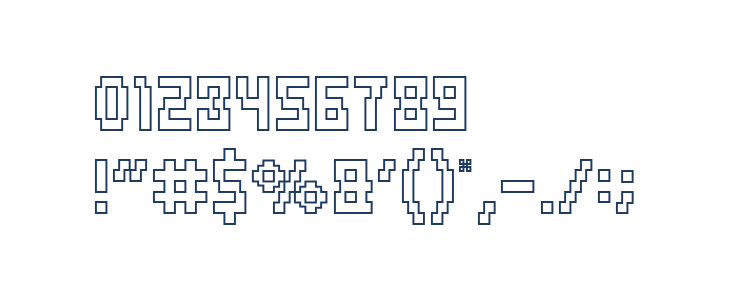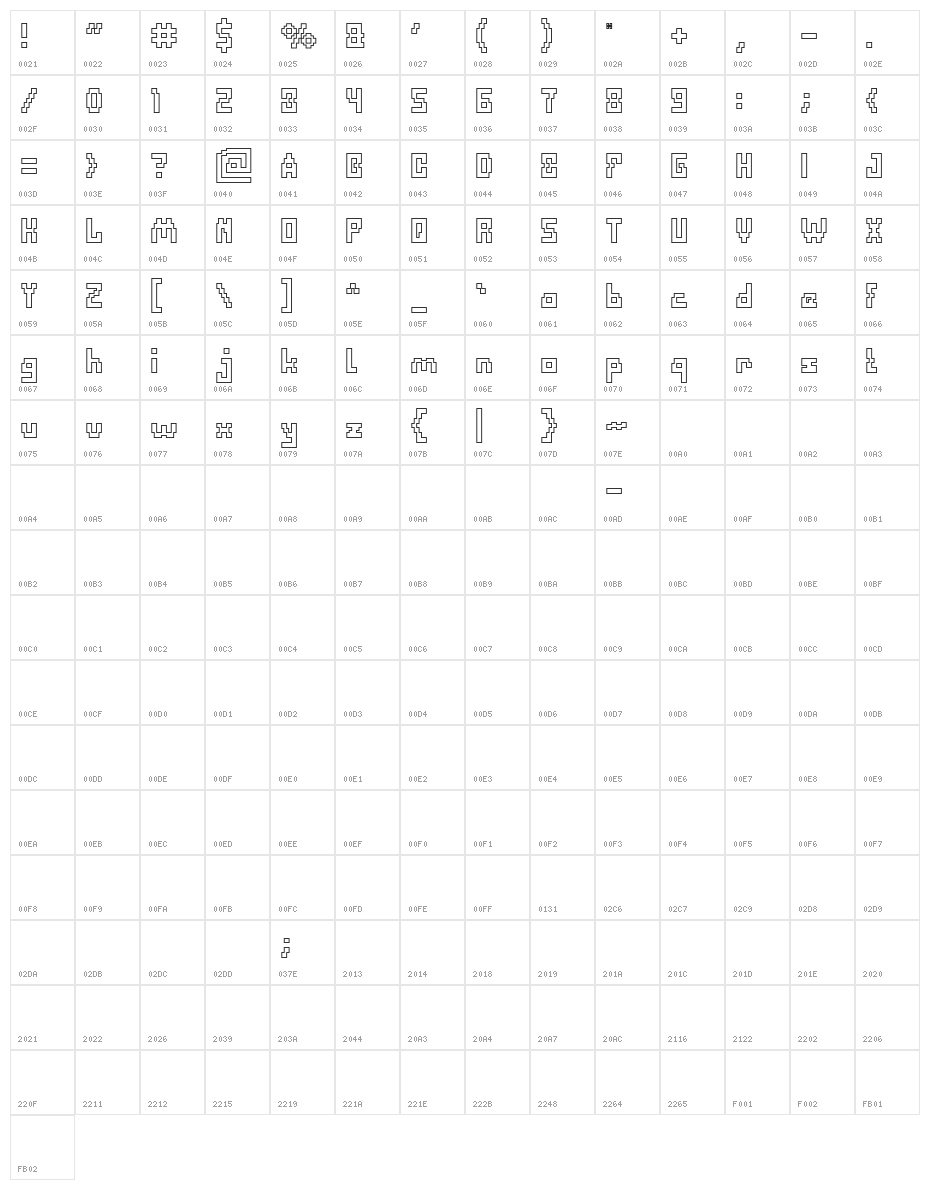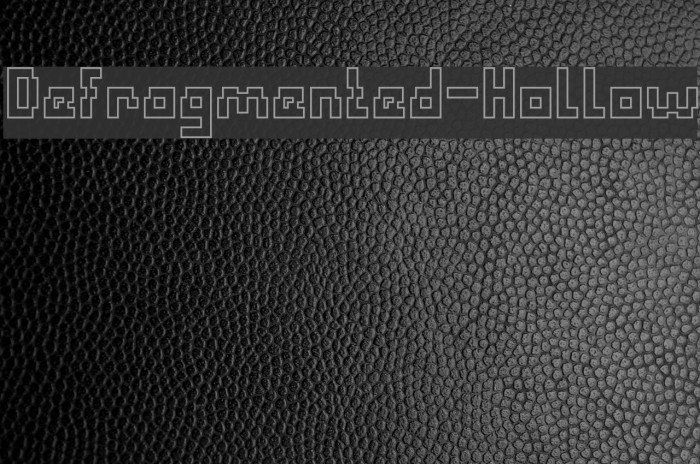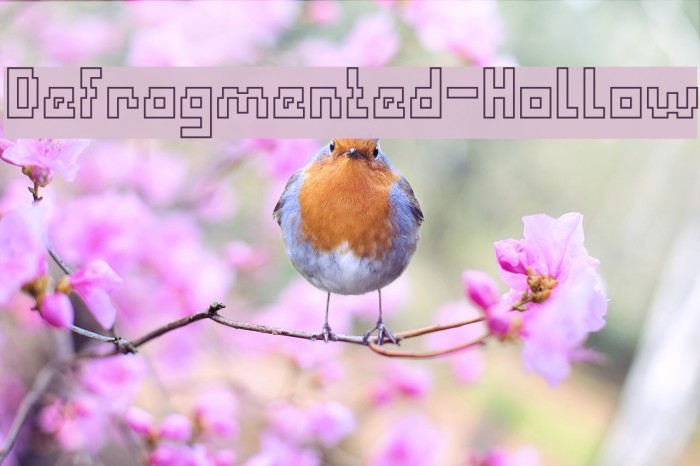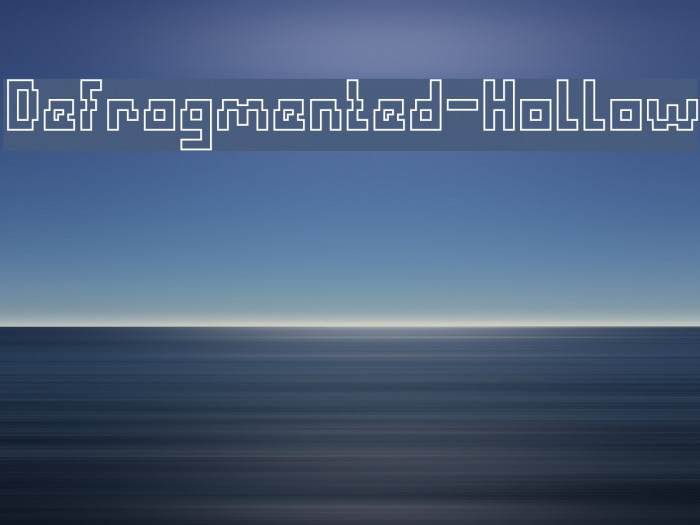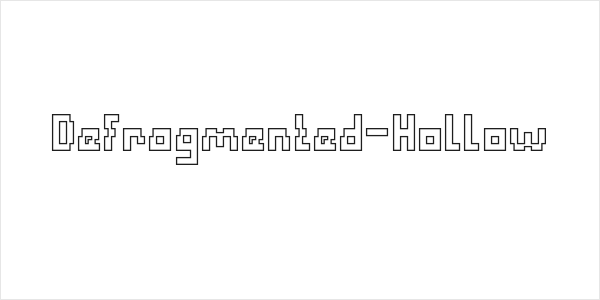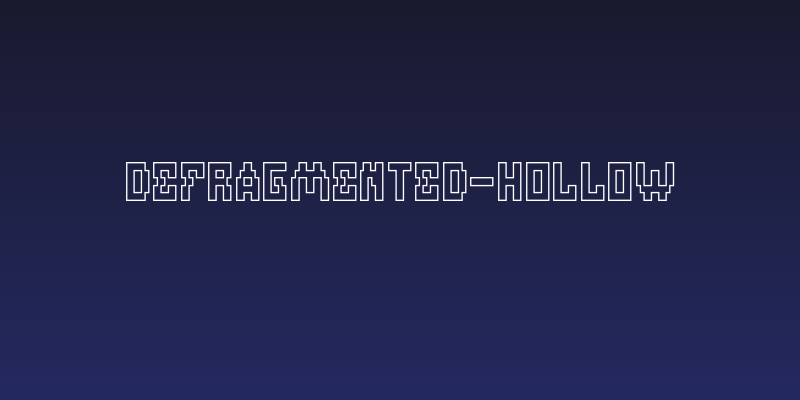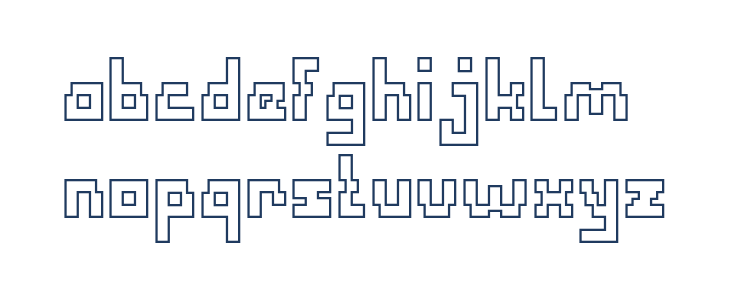
Defragmented-Hollow Font
Defragmented-Hollow Description
This font features a unique, hollow design with a blocky, geometric structure. Each character is outlined, creating a fragmented appearance that gives it a digital, pixelated feel. The uppercase and lowercase letters maintain a consistent style, with sharp angles and straight lines. Numbers and special characters follow the same design principles, ensuring uniformity across the set. The font's hollow nature allows for creative use of background colors or textures to fill the characters, enhancing its visual impact.
| Proposed Projects | Ideal for digital art, video game design, tech-themed posters, and modern branding projects. |